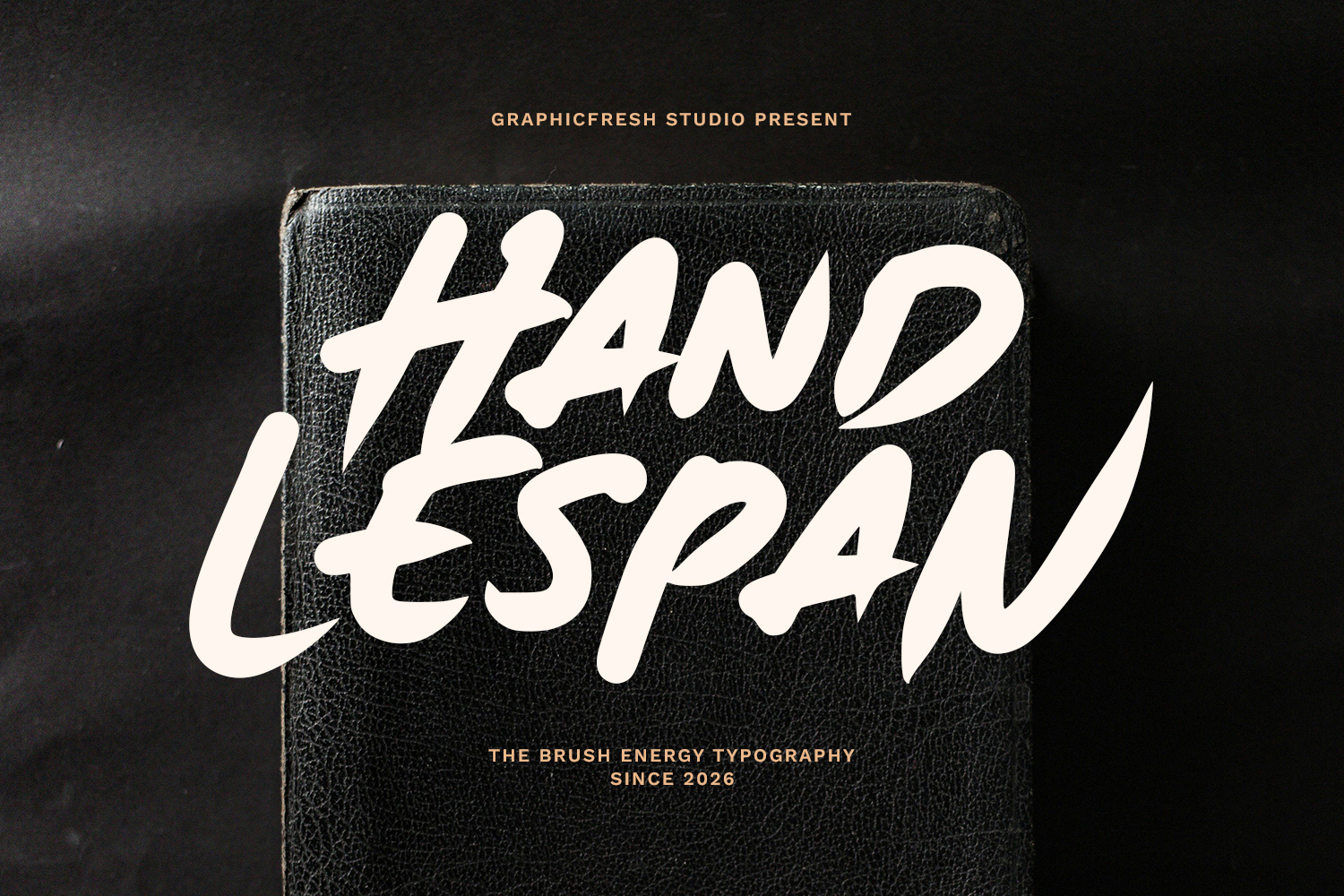
Hand Lespan - The Energy Brush Font
Hand Lespan is an energetic brush font built from fast, bold, and powerful hand strokes. Inspired by movement and raw expression, this font delivers high-impact visuals with a dynamic brush texture. Perfect for sports branding, posters, headlines, and social media designs that need strong energy and attitude. Hand Lespan brings motion, intensity, and confidence into every letter.